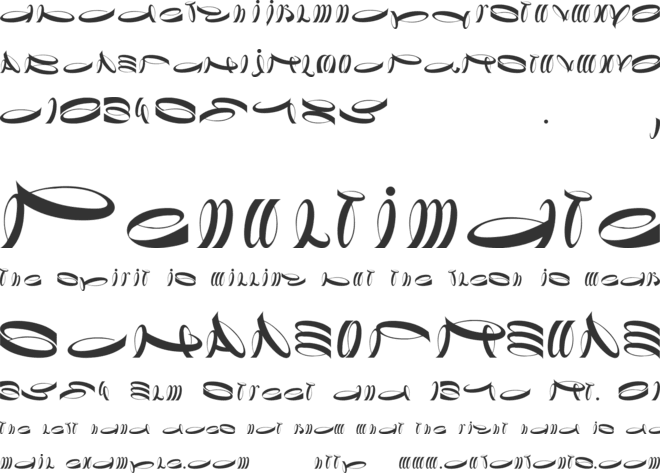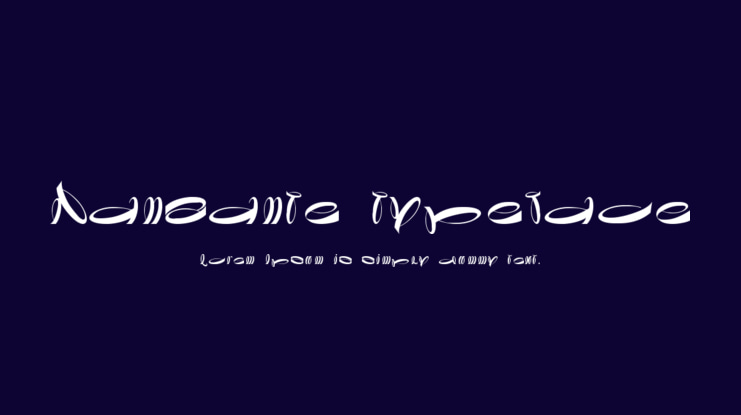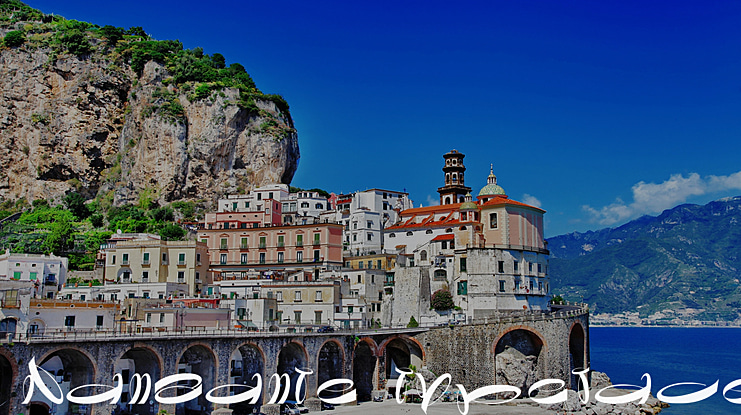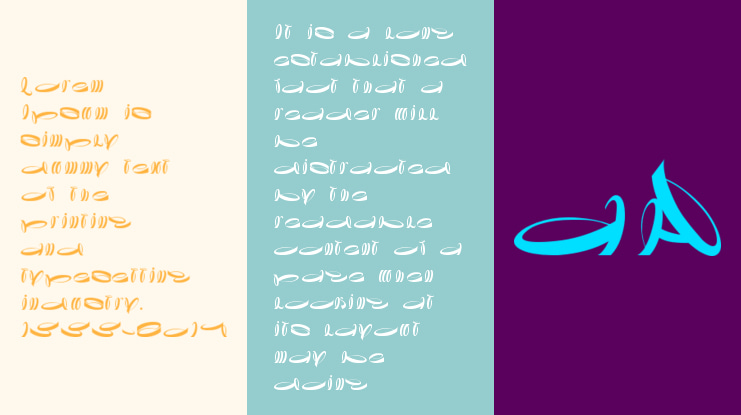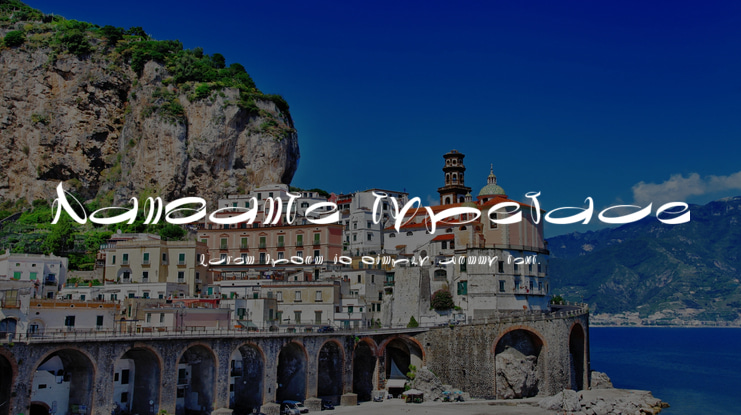
Danzante typeface Font
Brando Corradini
"Danzante typeface is a font that is inspired by the movement of dance and dance.
I was inspired by the architecture of the Dancing House (Tančící dům) in Prague.
In the project I tried to pay homage to some of the greatest representatives of this "noble art", such as Isadora Duncan, Loie Fuller and Rudolf Nureyev."